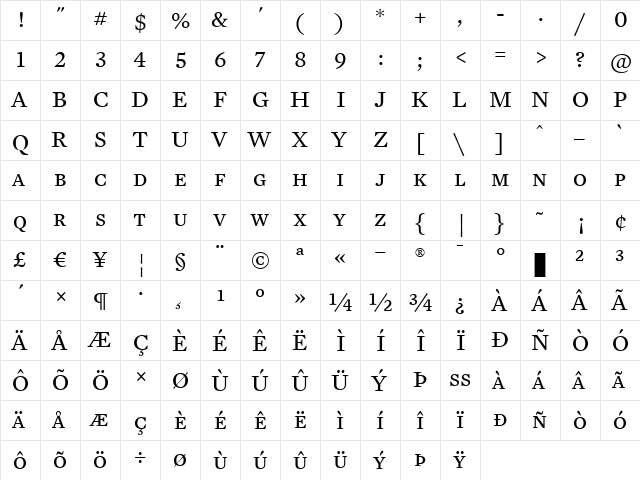
Mercury Text G2 Regular
Design Context for Mercury Text G2 Typeface
Mercury Text G2 offers clean, dependable letterforms without strong stylistic allegiance, making it a practical choice for designers who need flexibility.